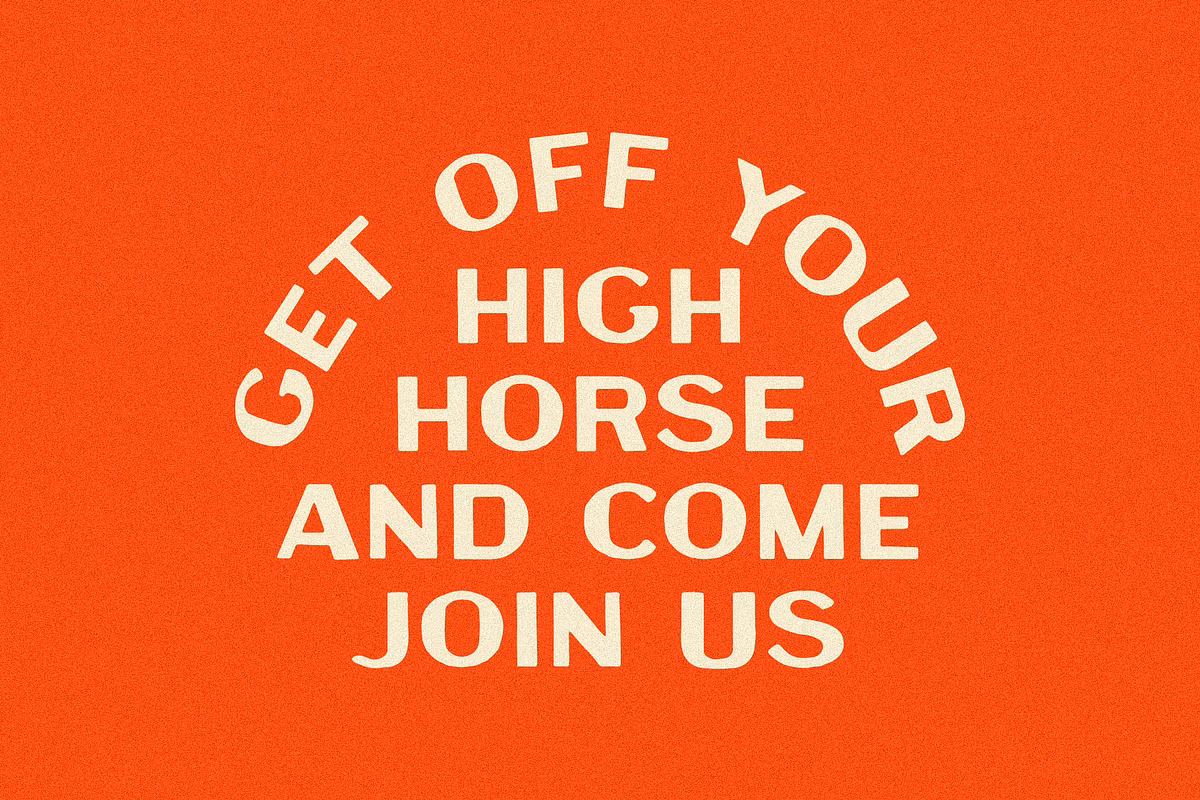
Basal I: A Bold Sans Serif Font
Introduction to Basal I
Basal I, which translates to “base layer” or “fundamental” in Spanish, is a captivating bold sans serif font that draws inspiration from a vintage bottle design from 1910. This modern typeface beautifully marries historical aesthetics with contemporary styles, making it a versatile choice for various design projects. Featuring all uppercase letters, numbers, and basic punctuation, Basal I is engineered to stand out while maintaining clarity and elegance in design.
Design Style of Basal I
The style of Basal I is really simple and clean, which is what you often see in sans serif fonts. It has thick lines and shapes that are based on geometry, which gives it a strong and modern feel. This makes it perfect for titles, logos, and ads. The lines are clean and the same throughout, so it’s easy to read and understand the message, no matter where you see it.
Historical Influence
Basal I is a unique font that takes its inspiration from a 1910 bottle design, combining classic typographic styles with a modern twist. By blending the old with the new, this font is able to connect different design eras, making it appealing to a broad range of people. What’s interesting about Basal I is that it’s not just a typeface – it’s also a piece of design history, with a rich background that adds depth to its character. This historical context is what sets it apart, giving it a special significance that goes beyond just being a font. As a result, Basal I is able to serve as a bridge between the past and the present, making it a fascinating choice for designers who want to add a touch of nostalgia to their work while still keeping it fresh and modern.
Visual Characteristics
Basal I has a really bold and simple look that makes it stand out. The lines are all the same thickness, and there aren’t any fancy decorations, which keeps the font looking clean and easy to read. This means it works really well whether you’re using it on a screen or in a printed document – it gets your point across without being too much. When you use the uppercase letters, they give off a sense of importance and power, which makes them perfect for titles and headings. Overall, Basal I is a great choice if you want to make a statement with your text without overwhelming the person reading it.
Character Set and Versatility
Basal I includes a complete character set featuring all uppercase letters, numbers, and basic punctuation. This comprehensive range allows designers to utilize the font in various contexts, from branding and advertising to web design and editorial work.
Uppercase Letters
The big letters in Basal I are really bold and eye-catching, which makes them perfect for things like headlines, banners, and signs where you want to grab people’s attention. One of the great things about Basal I is that all the letters are the same height and width, so they look really good together and make any project look more visually appealing. This consistency is what makes Basal I so effective, whether you’re using it for a big sign or a small banner. The bold letters are designed to stand out, and they do a great job of making the message clear and easy to read. Overall, Basal I is a great choice when you want to make a big impact with your words.
Use Cases for Basal I
Basal I is a versatile typeface that can be employed in a variety of design applications. Here are some prominent use cases that highlight its strengths:
Branding and Identity
One of the primary applications of Basal I is in branding and identity design. Its boldness makes it suitable for logos, business cards, and packaging. The historical influence gives brands a unique edge, making them memorable and distinctive in a crowded marketplace.
Advertising and Marketing Materials
When it comes to designing posters, flyers, or digital ads, Basal I is a great option because it’s easy to read and really grabs your attention. It has a modern look that’s also timeless, which makes it perfect for promotional materials that need to stand out and get your message across.
Web Design
When it comes to designing websites, Basal I is a great choice for things like headings, menus, and buttons that encourage people to take action. The reason it works so well is that it’s really clear on screens, which makes it easy for users to read and interact with the content, and that’s what makes the experience so much better for them. By using Basal I in this way, designers can create a more user-friendly interface that helps people navigate and understand the website more easily.
Basal I is not just a font with a bold and sans serif style, it’s a modern typeface that brings together the past and the present. It has some really unique features that make it very versatile and give it a strong visual presence. This makes it perfect for lots of different uses, like creating brands, making ads, and designing websites. When you understand what Basal I can do and how to use it, you can add it to your design tools and make your projects look clear and stylish. Whether you’re working on a big campaign or a small website, Basal I can help you make a statement. Its combination of classic and modern elements gives it a special something that can make your designs stand out. By incorporating Basal I into your work, you can create things that are both beautiful and effective.